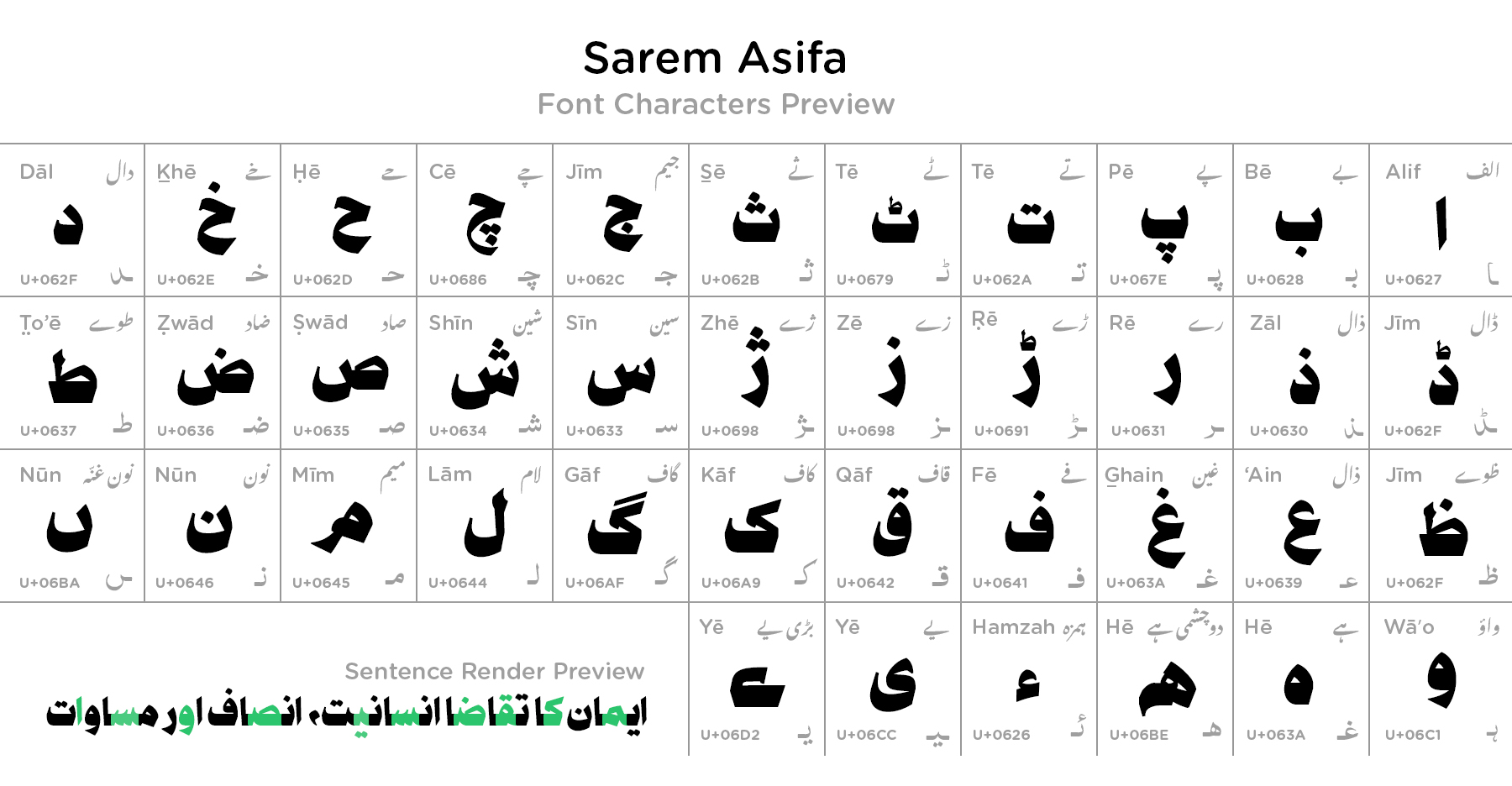
Sarem Asifa has a bold, clean, and modern design. Due to its rounded strokes and edges, large and clear characters, it is mostly suitable for headings. The weight is heavy that gives it an authoritative and confident look. You can use this font for windows, Mac, android, and all the other web platforms. This font supports Sindhi, Urdu, Siraiki, Arabic, and Persian languages. Its sans-serif style, which mean there are no decorative strokes at the ends of the letters. The design of these letters is almost uniform. Each character exhibits strong and straight lines with smooth curves. All the strokes are consistent in width that adds a bold and clear appearance. The edges of Sarem Asifa are clean and the curves have smooth flow without being overly sharped or too rounded. This Sindhi-style font make the text highly legible even from the distance. Because of its heavy weight and boldness, it is ideal to use in promotional materials, headlines, digital and print media. All the designs where you want the text to be easily readable and visually appealing, Sarem Asifa can be a good choice.